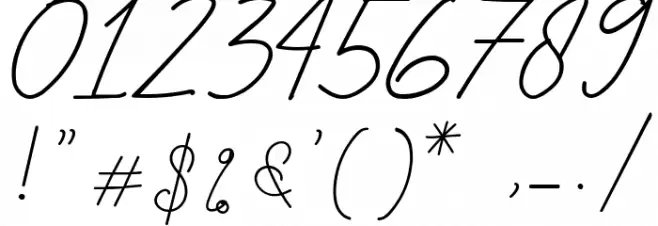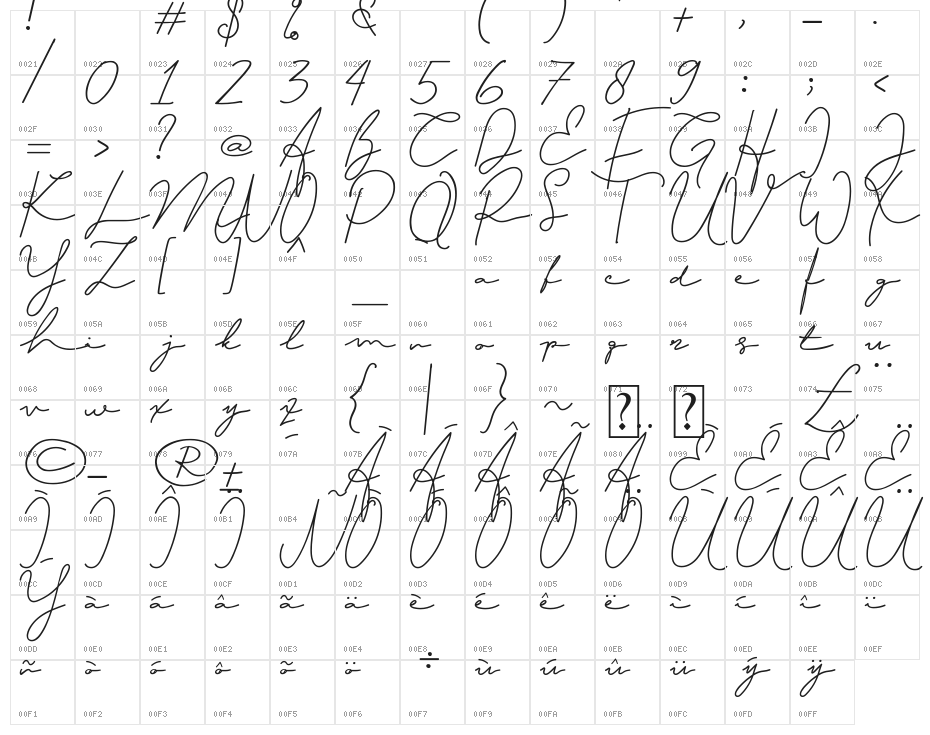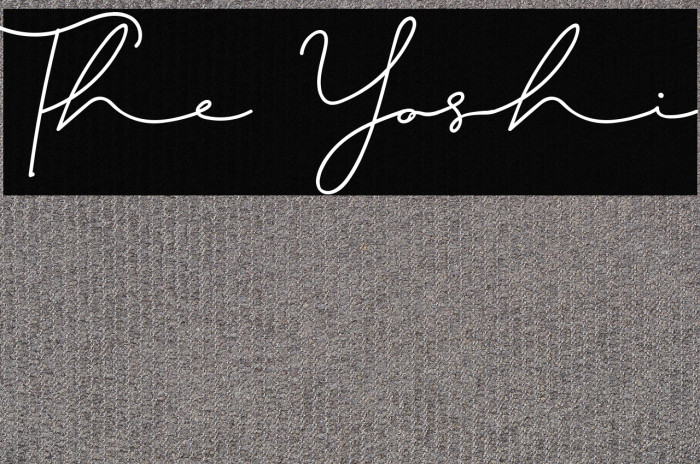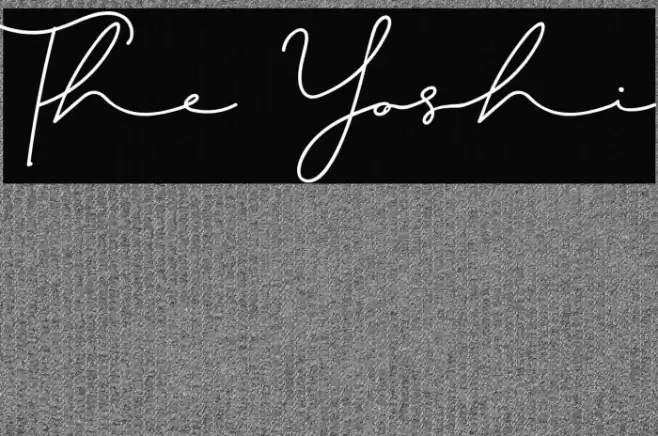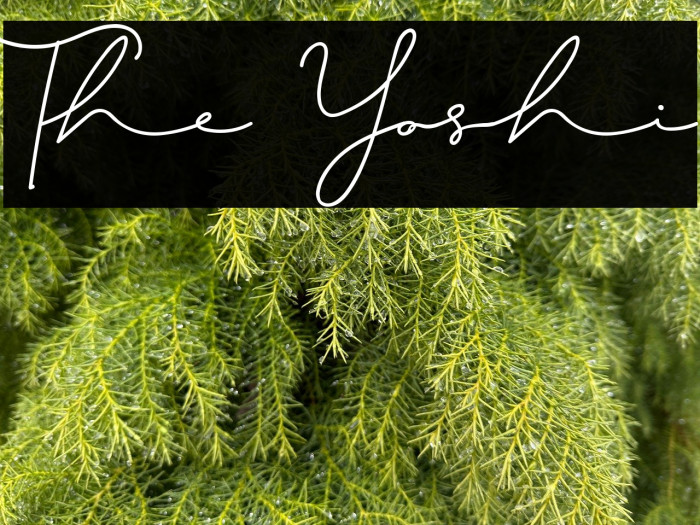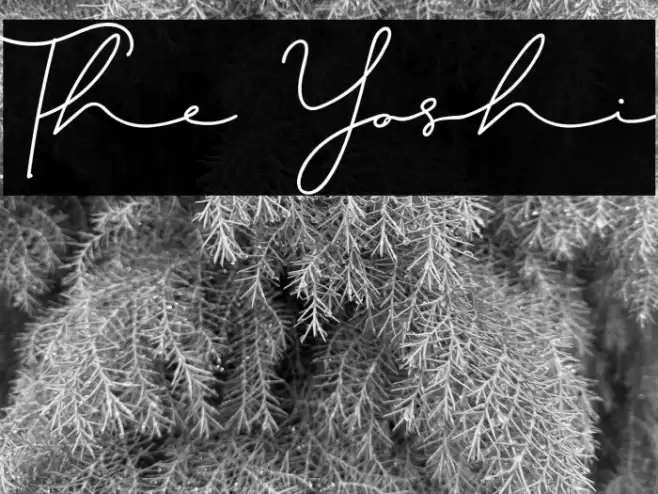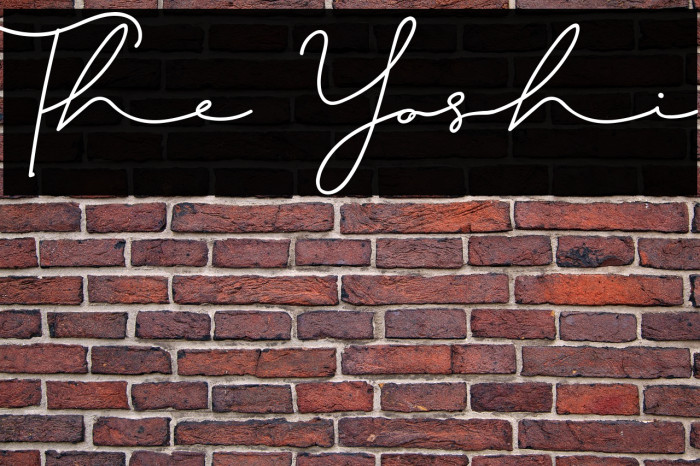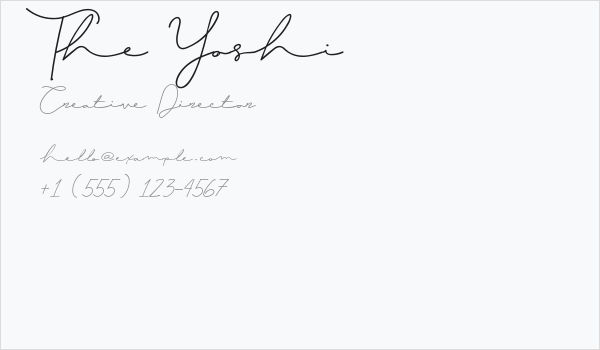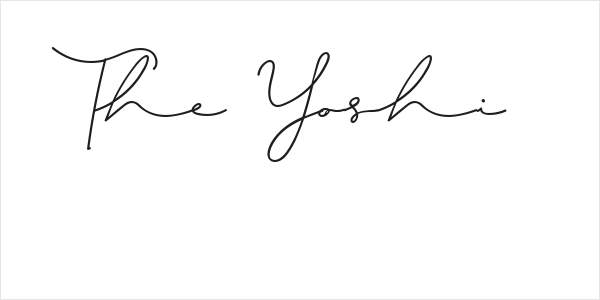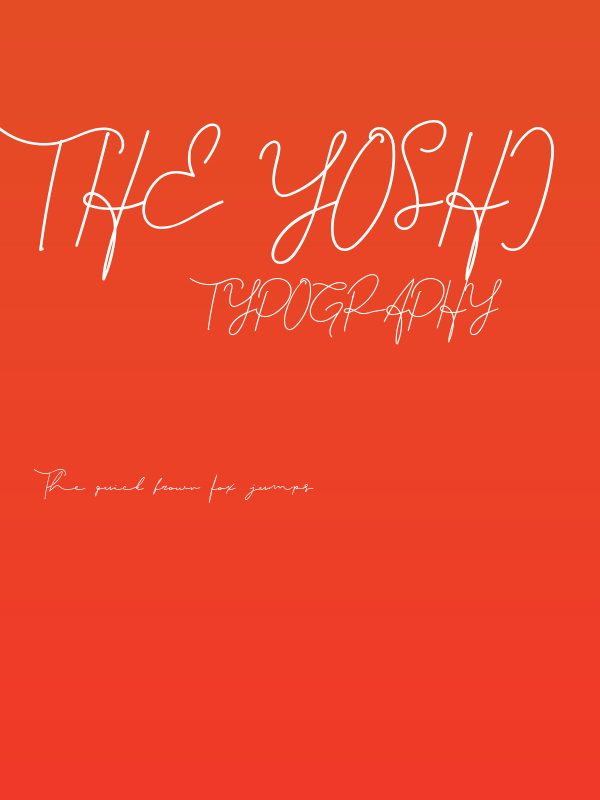
The Yoshi Font
The Yoshi Description
This font features a fluid, cursive style with a handwritten appearance. The letters are elegantly connected, creating a continuous flow that mimics natural handwriting. The uppercase letters maintain a consistent height, while the lowercase letters exhibit a slight slant, enhancing the script's dynamic look. The numerals are clear and distinct, maintaining the cursive theme with subtle curves. Special characters are integrated seamlessly, complementing the overall aesthetic. The thin strokes and smooth curves give it a delicate and sophisticated feel, making it suitable for projects that require a personal touch.